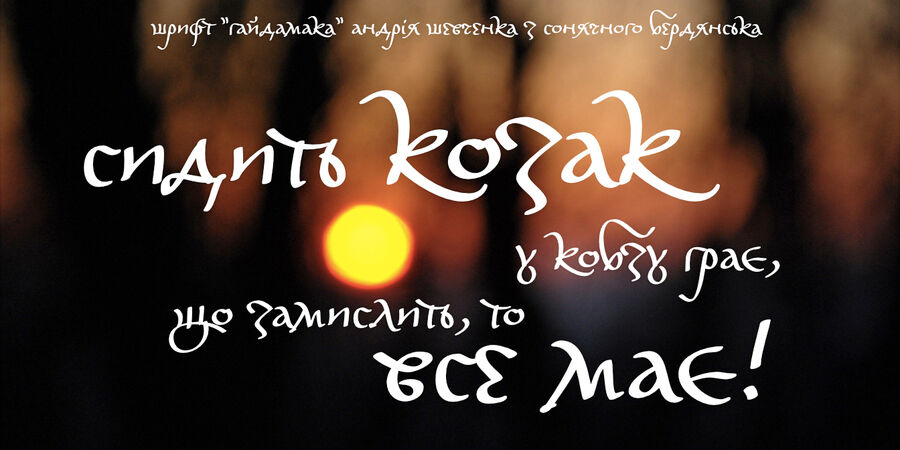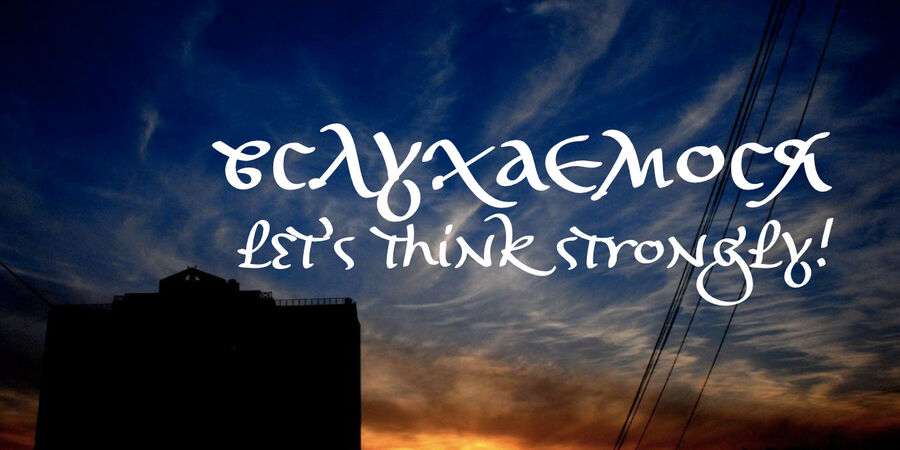
Hajdamaka (1 font)
Hajdamaka is an uncompromising typeface without kerning, without uppercase letters, without historical prototypes, but certainly with notable personality! Created back in 2007, this script, named after the haidamaks, Ukrainian guerrilla fighters of past centuries, lines lively and brazenly in the text. The typeface was exhibited at the legendary festival "Свято Кирилиці" in Kharkiv, and used to be a part of the tourist logo of Ukraine. Hajdamaka contains European Cyrillic and unaccented Latin characters, numbers and some additional characters. The money from the sale of this font goes to charity, read the details here: https://www.facebook.com/groups/151717195372009/posts/1008076373069416/ The typeface was designed by Andrij Shevchenko. Promo pictures by Bohdan Hdal.
Associations for font family HajdamakaTypeface personality and character:
historical, craft brewed, man-made, hempen, flexible, homespun, rustic, dashing, agile, fast, cheeky, warlike, daring, dynamic, original, freewheeling, plastic, ethnic, natural, traditional, heroic, ancient, Cossack, free, hurried, picturesque, alive, temperamental, motivating, active, organic, impetuous, tribal, cheerful, dancer, musical, poetic, lyrical, vegetable, presents, Artisanal, quick, sweeping, Soft
souvenir, bread, bath, honey, history, battle, literature, cinema, vodka, alcohol, reconstruction, folklore, music, dance, chronicle, Cossack, hetman, chieftain, spice, poetry, lyrics, flowers, holiday, embroidered, tree, ethnography, nature, bank note, tourism, legend, graphics, illustration, landscape, food Typeface exhibits stylistic traits: